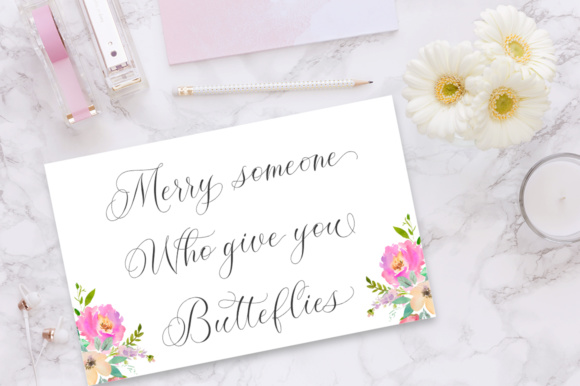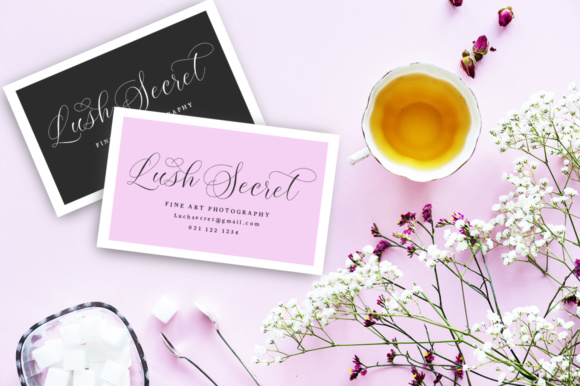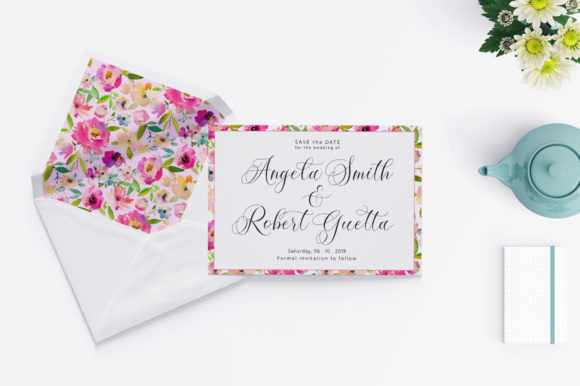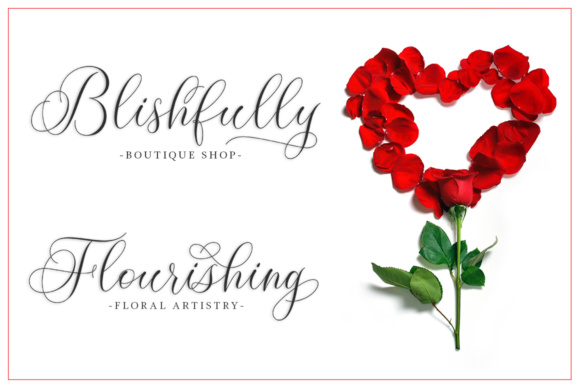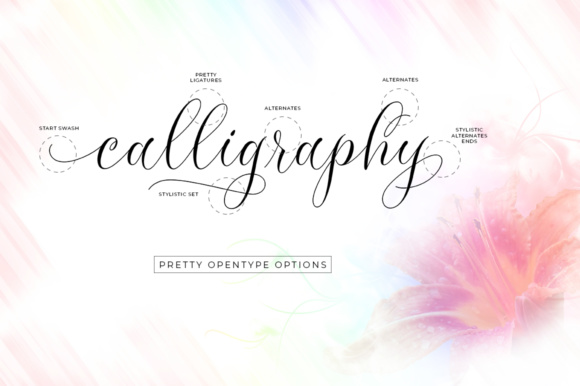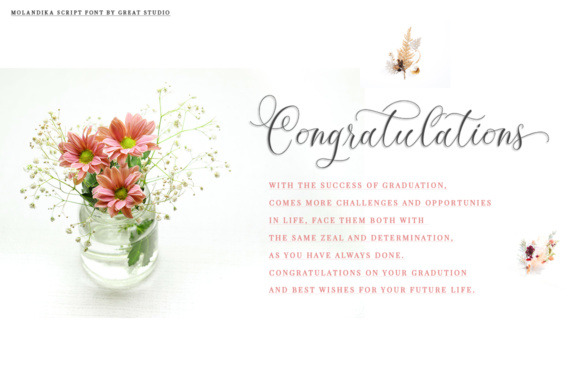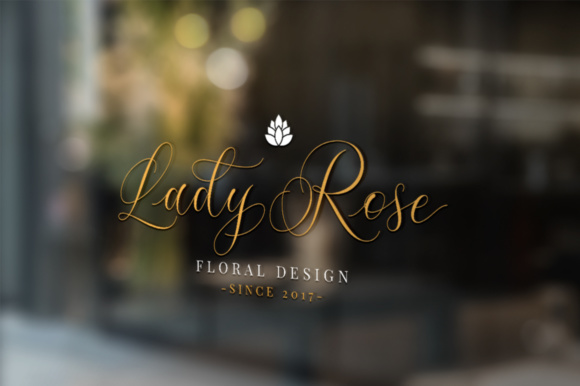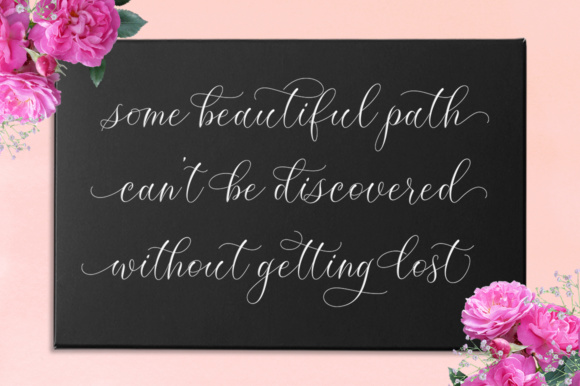
Molandika Font
About Molandika Font
The Molandika is an elegant calligraphy script, designed to convey elegance and style. It is slender, feminine and friendly. It can be used for various purposes such as: logos, product packaging, wedding invitations, branding, headlines, signage, labels, signatures, book covers, posters, quotes and more.